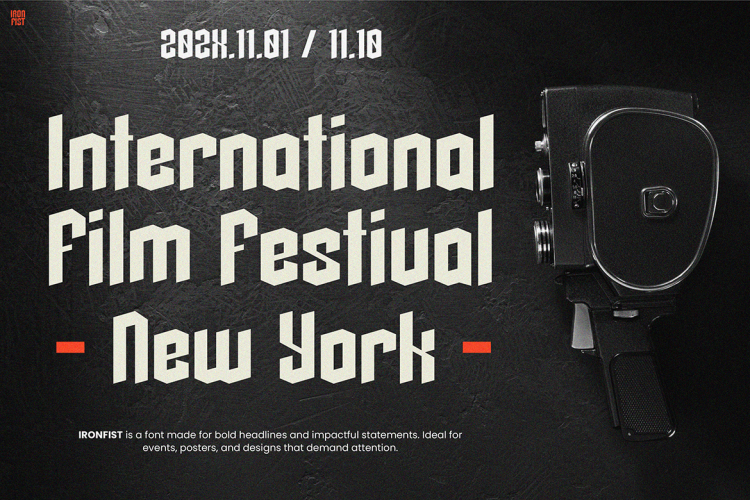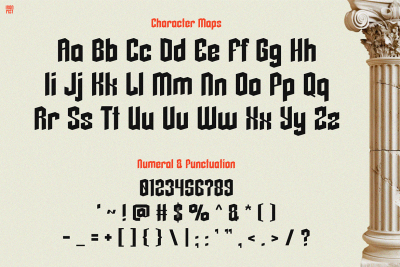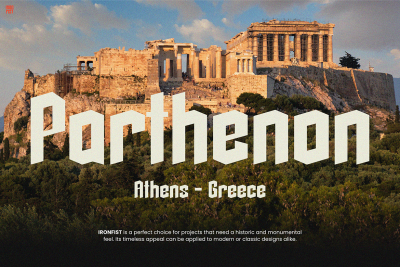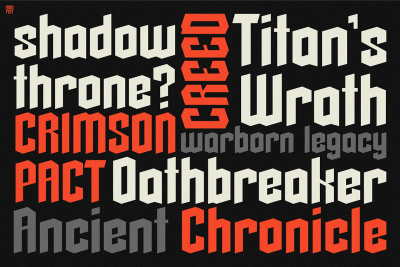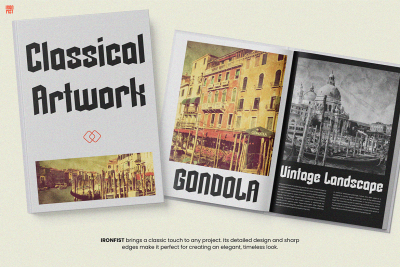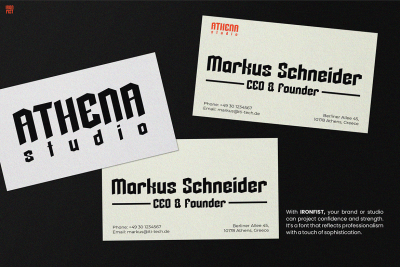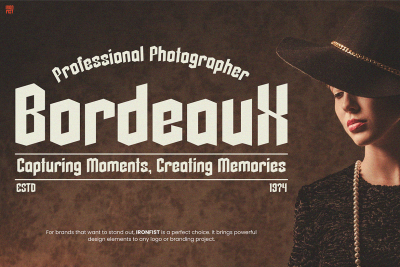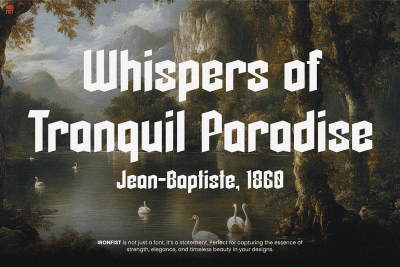
Tattoo Font Ironfist exudes strength, history, and character. Its design draws inspiration from ancient architecture and classic tattoo lettering, making it perfect for bold statements. Whether you’re crafting a powerful brand identity, designing unique apparel, or creating a vintage-style poster, Ironfist ensures a striking visual impact. Moreover, its bold structure immediately grabs attention, allowing your designs to leave a lasting impression.
Tattoo Font Ironfist stands out with its blend of modern geometric forms and rugged, historical aesthetics. The sharp, angular lines and structured yet aggressive design create a balance of sophistication and rebellion. Furthermore, this typeface bridges old-world charm and contemporary trends, making it ideal for projects that demand a monumental and authoritative presence. Whether you aim to evoke Greek mythology, gothic aesthetics, or traditional tattoo artistry, Ironfist adapts effortlessly. In addition, its versatility ensures compatibility with various design styles, from modern digital art to classic print media.
Who Should Use Tattoo Font Ironfist ?
Tattoo artists, graphic designers, clothing brands, and creative professionals will find Ironfist an essential addition to their toolkit. Not only does it enhance custom lettering for tattoo studios, metal band logos, and luxury streetwear collections, but it also provides a bold and timeless appeal. Additionally, its adaptability makes it suitable for both modern and classic designs, offering designers endless creative possibilities. As a result, those seeking a typeface that delivers impact and originality will greatly benefit from using Ironfist.
Take your designs to the next level with Tattoo Font Ironfist! Its bold personality and unique aesthetic ensure that your work stands out. Whether you are a designer, a brand owner, or a tattoo enthusiast, Ironfist will add a timeless, commanding presence to your projects. Most importantly, its strong visual appeal will make your designs unforgettable. So, don’t waitโget Ironfist today and start creating legendary designs!